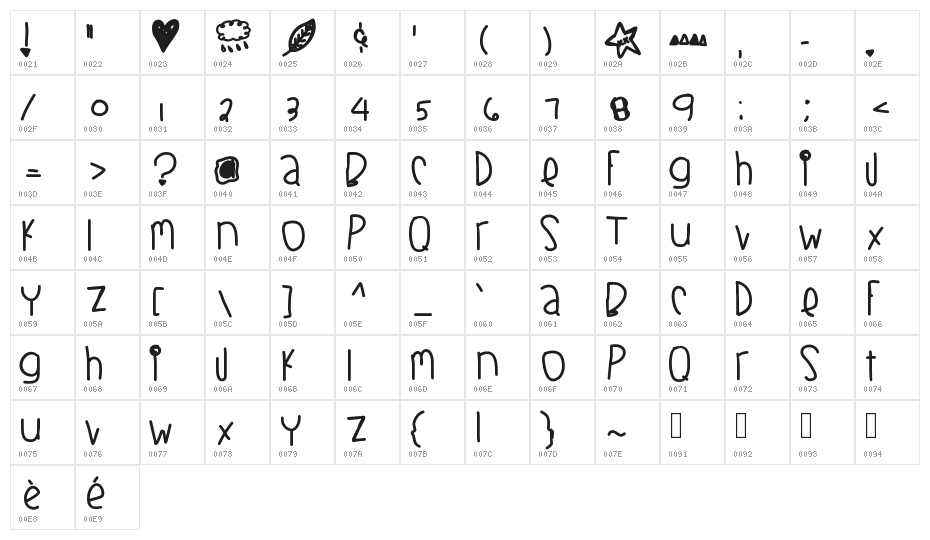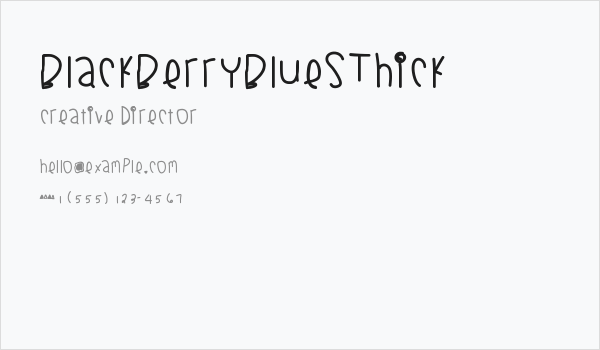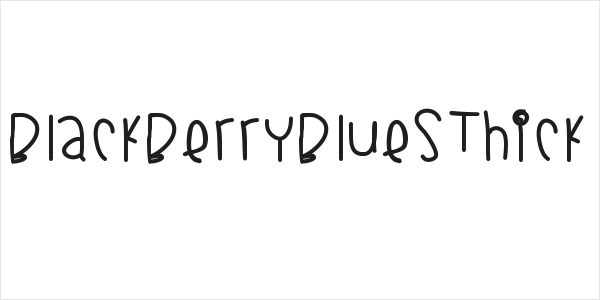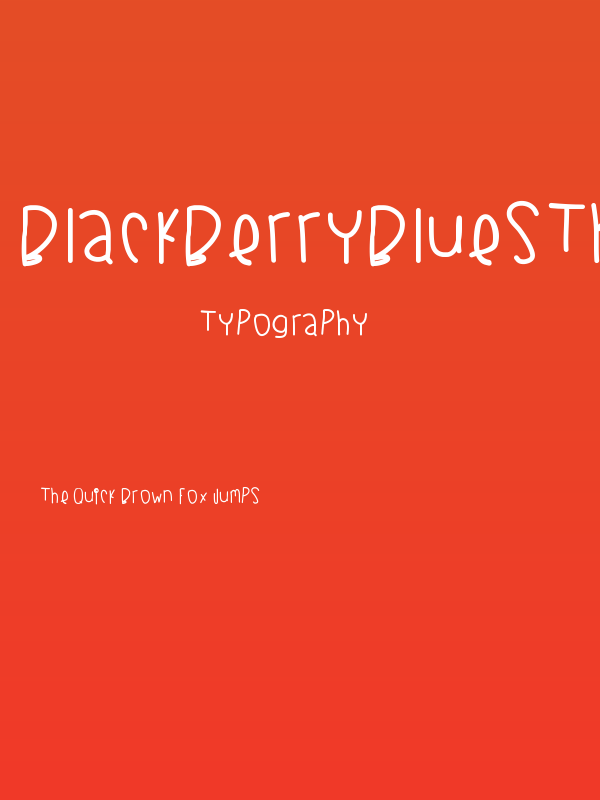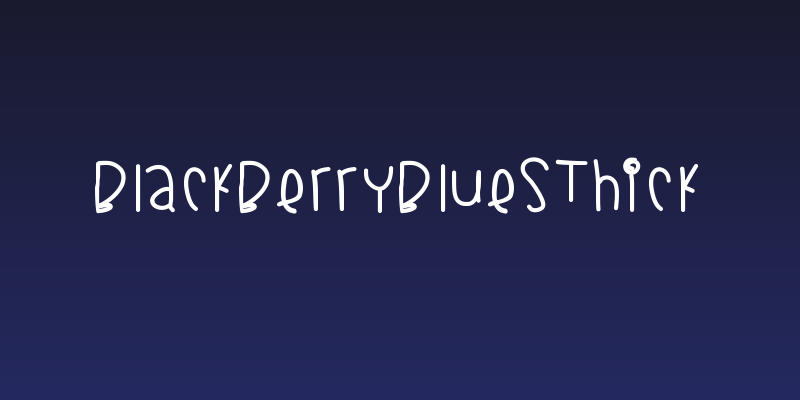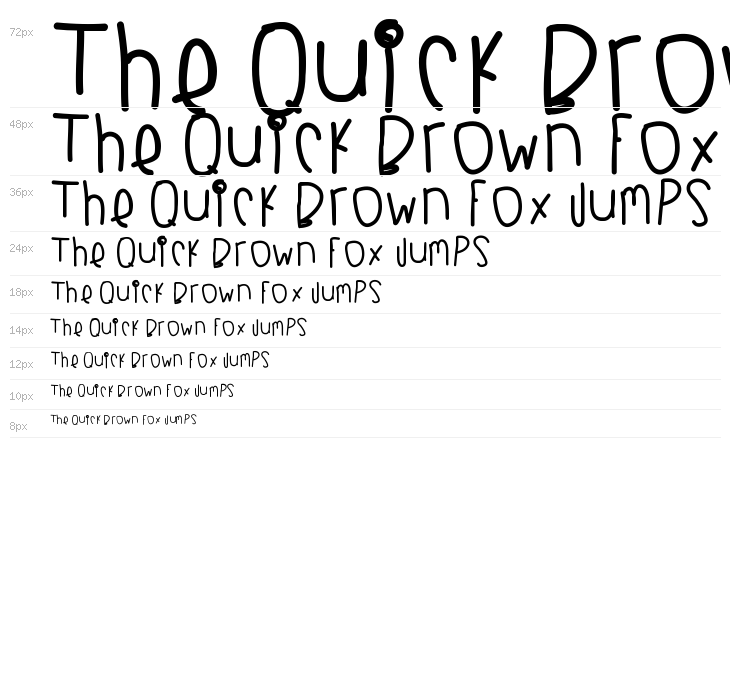
BlackberryBluesThick Font
BlackberryBluesThick Description
This playful and whimsical font features a hand-drawn style with irregular, rounded shapes and a casual, informal appearance. The letters are slightly uneven, giving it a charming, organic feel. The strokes are thick and bold, with a consistent weight throughout. The font includes both uppercase and lowercase letters, numbers, and a variety of special characters, including symbols and decorative elements like hearts and stars. Its unique style makes it suitable for creative projects that require a fun and approachable look.
| Proposed Projects | Ideal for children's books, greeting cards, playful branding, and creative posters. |